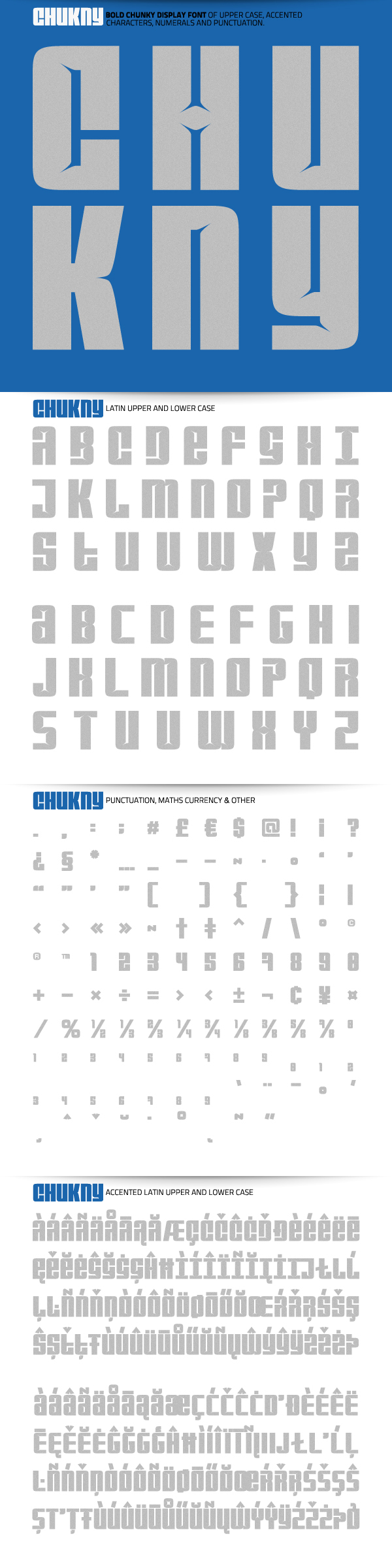
Chukny Typeface
"CHUKNY"
A BOLD CHUNKY HEADLINE FONT
With its pinched style curves and varying dual uppercase and lowercase this chunky font gives you freedom to experiment with character styles along with a vast collection of accented characters and punctuation its my most complex font build to date. I hope you enjoy this creation, thank you for viewing. Feedback and comments welcomed.